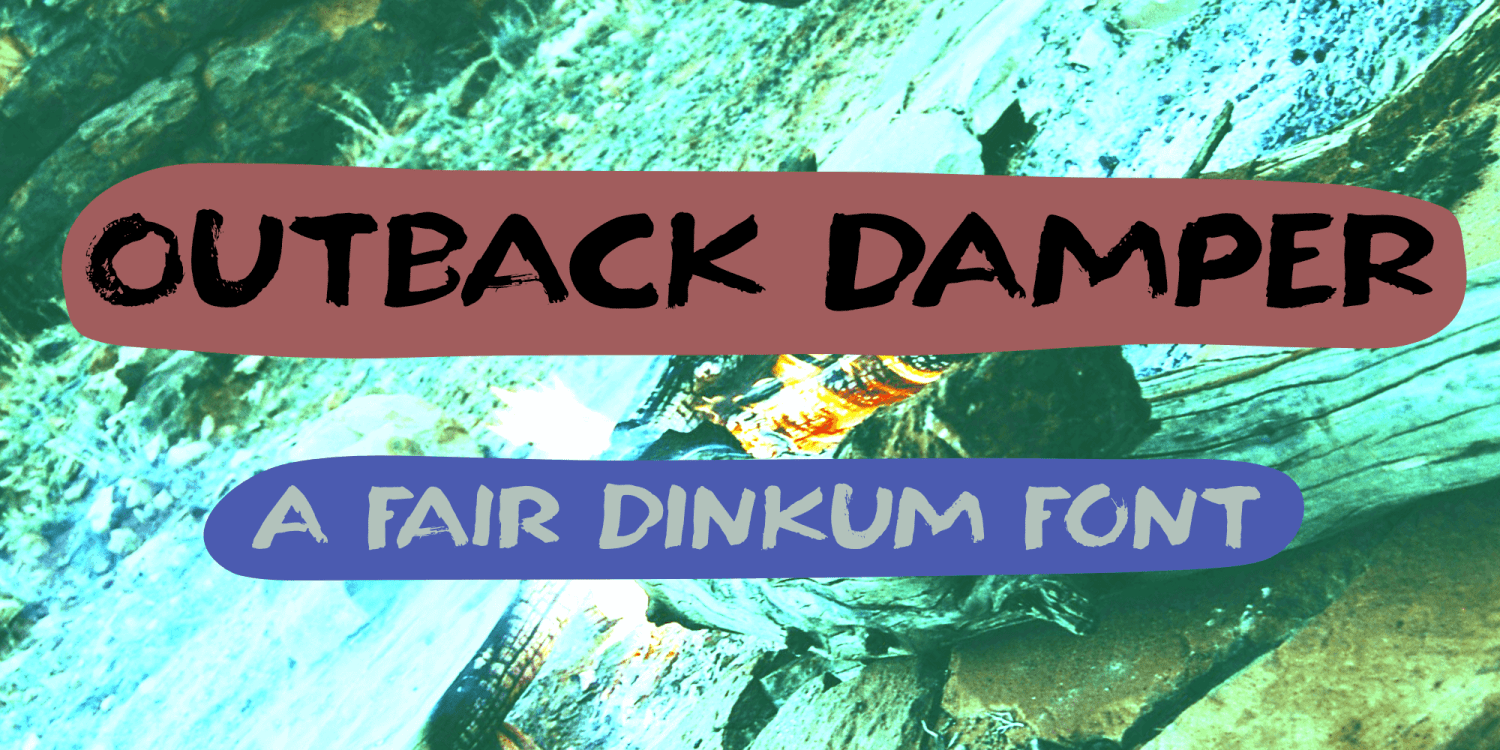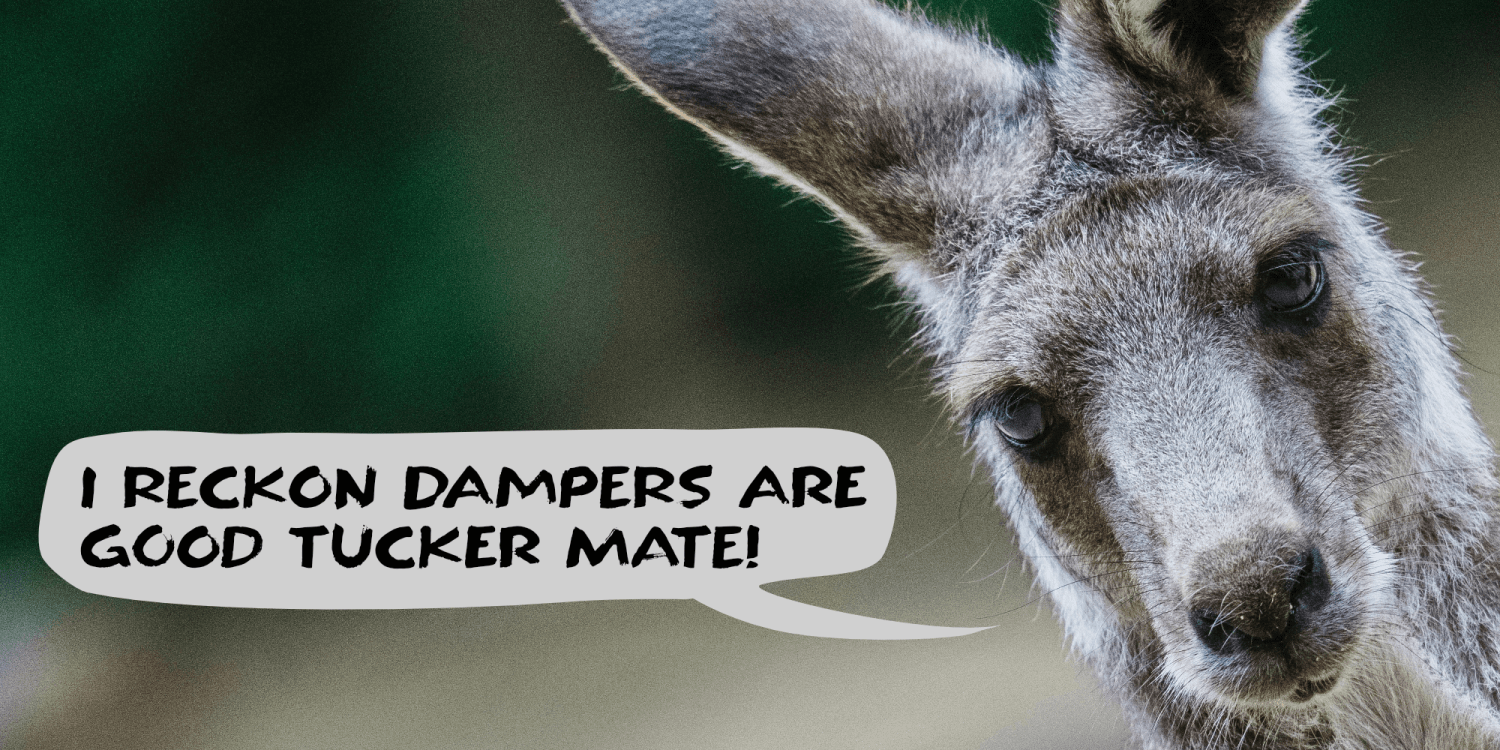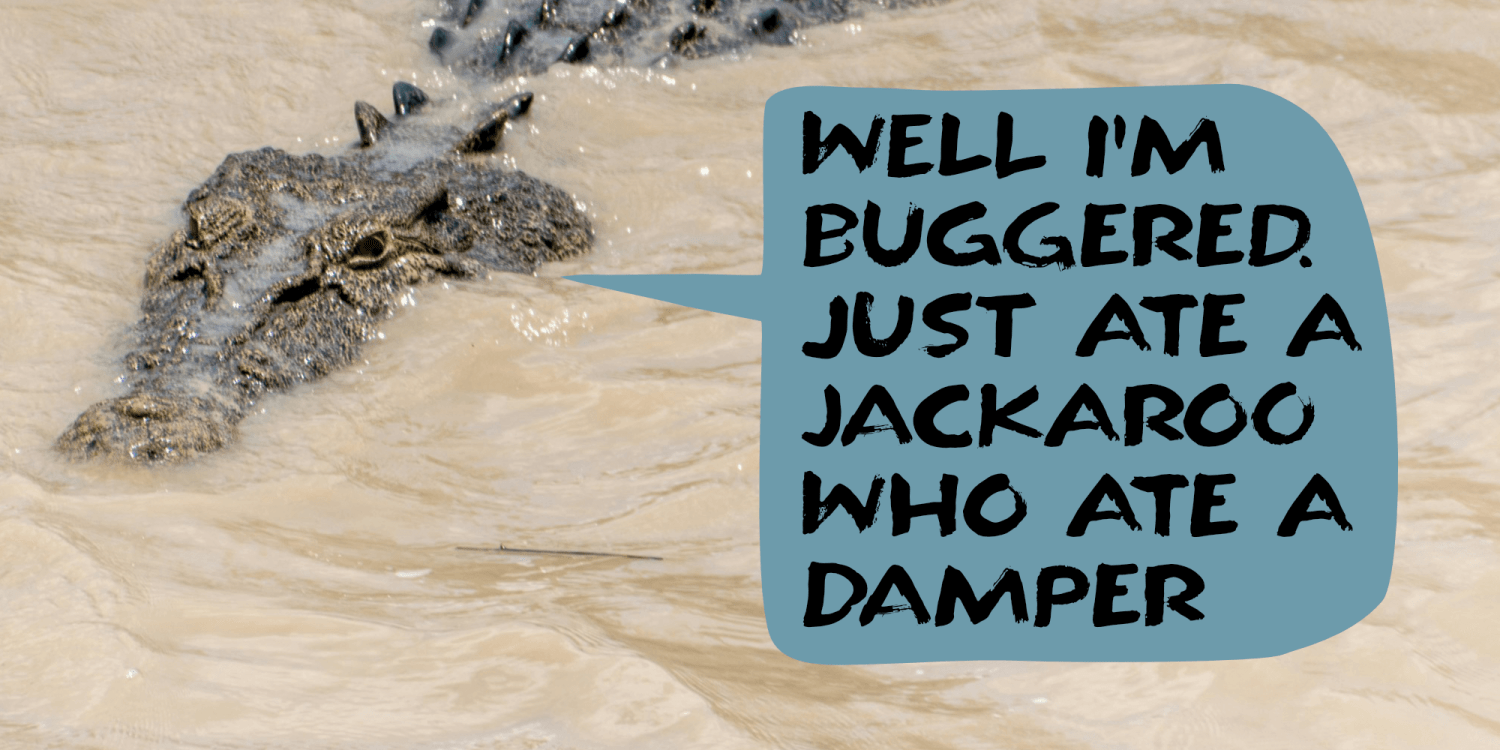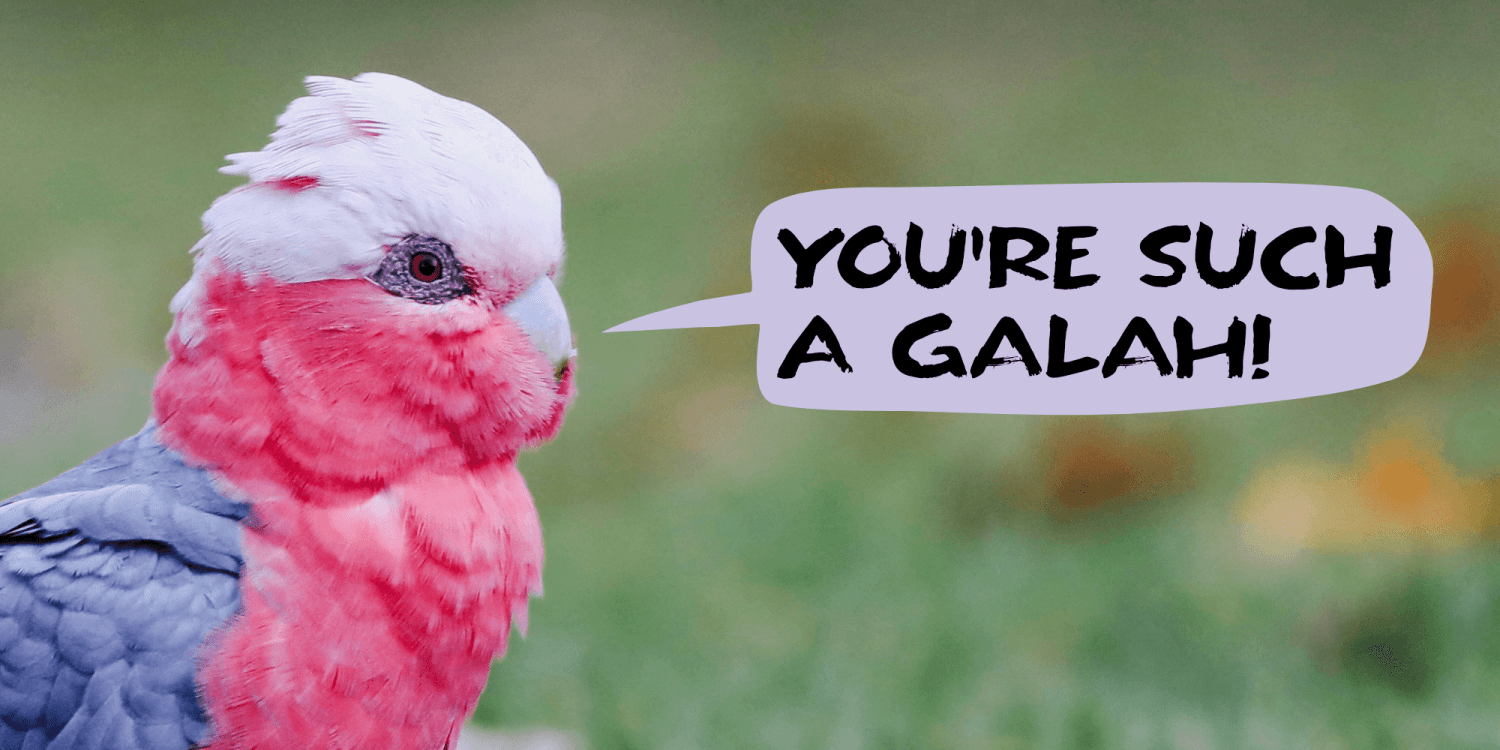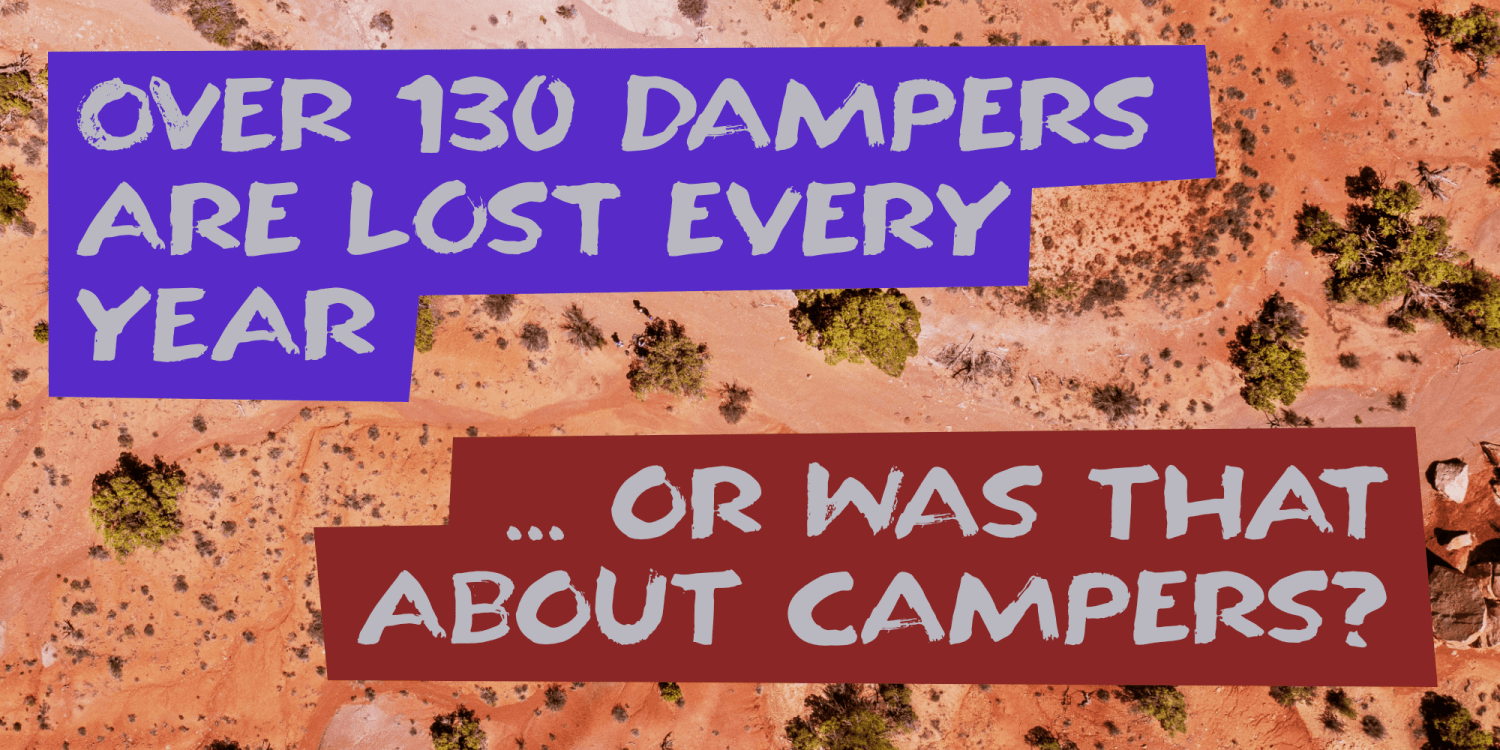
Outback Damper
I have been to Australia twice; once for almost a year and once for a couple of months. During my first visit, I hitch hiked around Australia - looking for seasonal jobs, like picking grapes, lychees and avocados. I also toured the outback. During one of these camping trips, the guide made a damper - a rough bread made from flour, salt, water and some baking soda. He kneaded the dough, put it in a Dutch oven and buried it in the hot ashes of our campfire. The result was a very impressive and super delicious bread!
Outback Damper was made with a brush and ink. It comes with a set of alternates for the lower case letters and extensive language support.